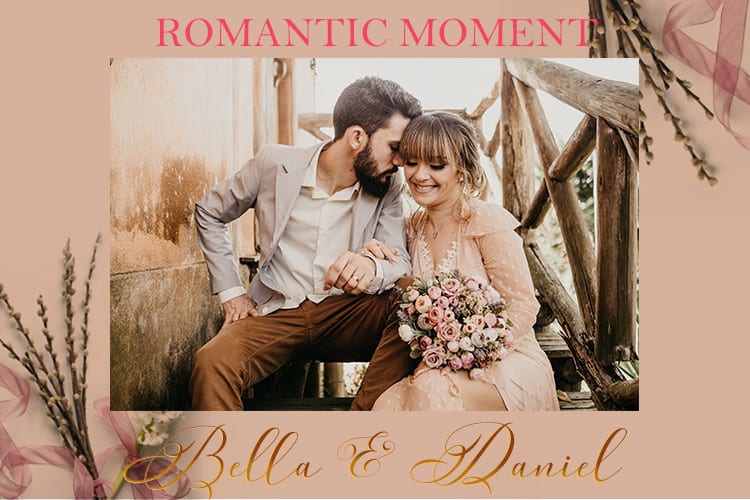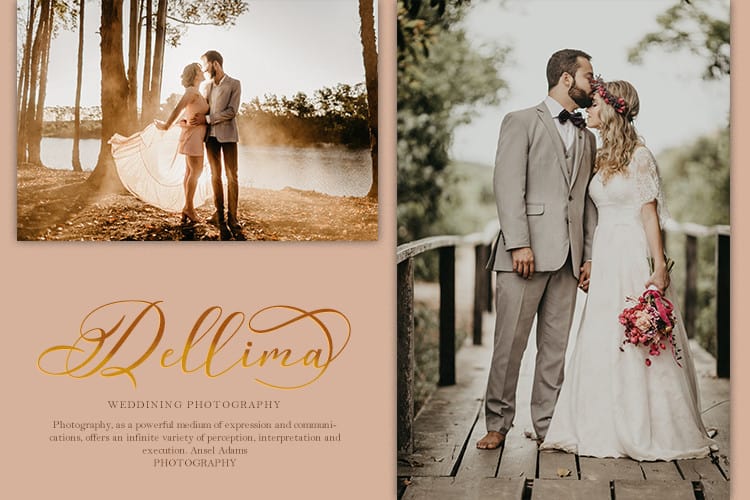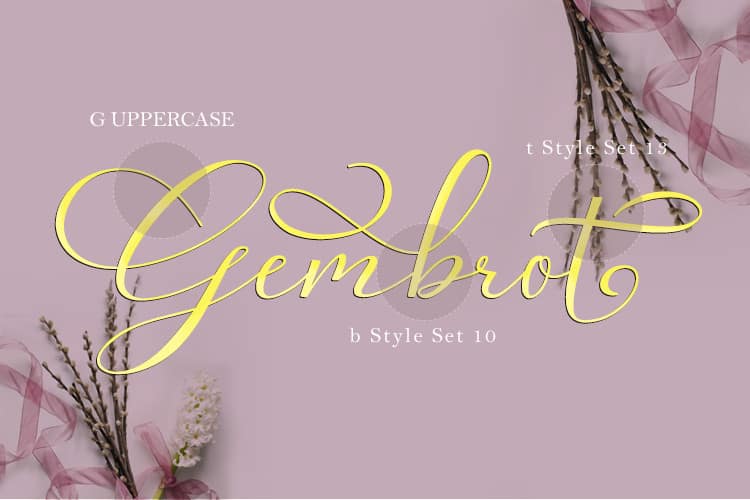
Dellima Calligraphy Font
Introducing Dellima Calligraphy Font. This beautiful script is for those who need some elegance and style for their designs and is perfect for wedding invitations, date cards and feminine branding.
Dellima includes a full set of Basic Characters, Numbers, and Uppercase Punctuation. Also contains binders and many stylistic alternatives to perfectly recreate natural calligraphy (check the preview to see all of them).